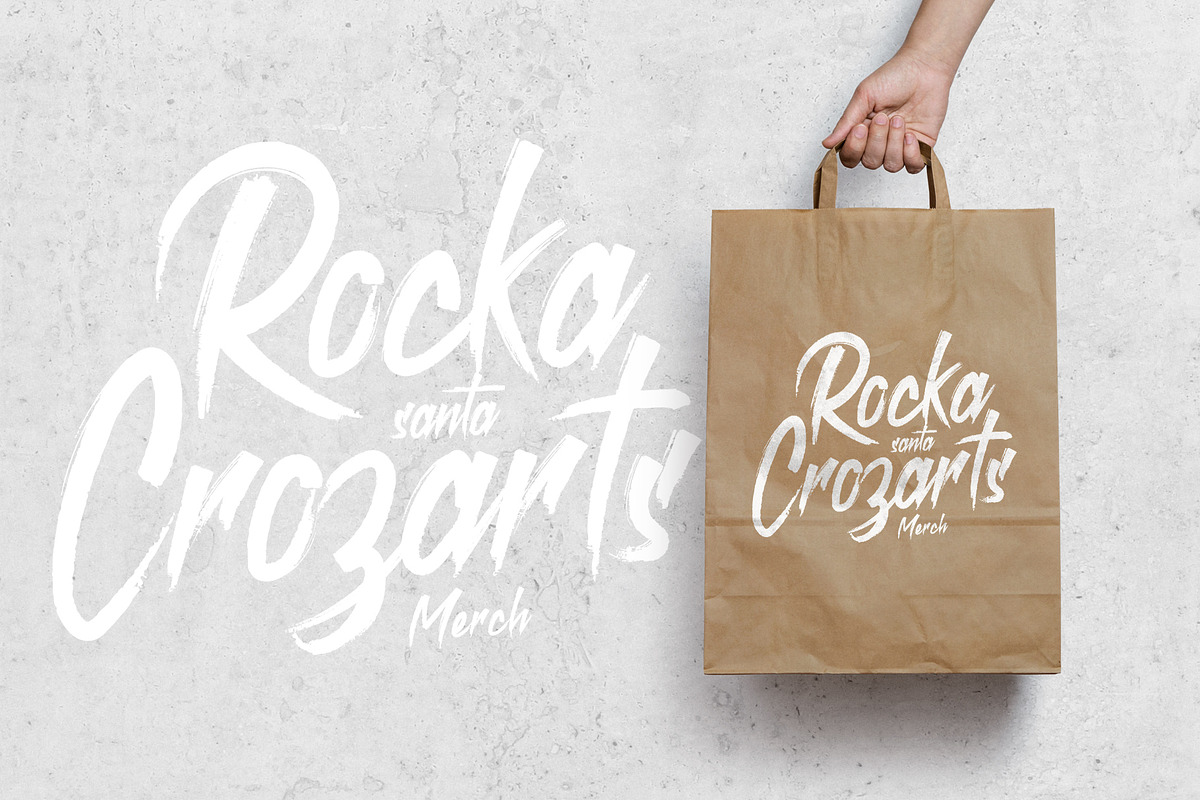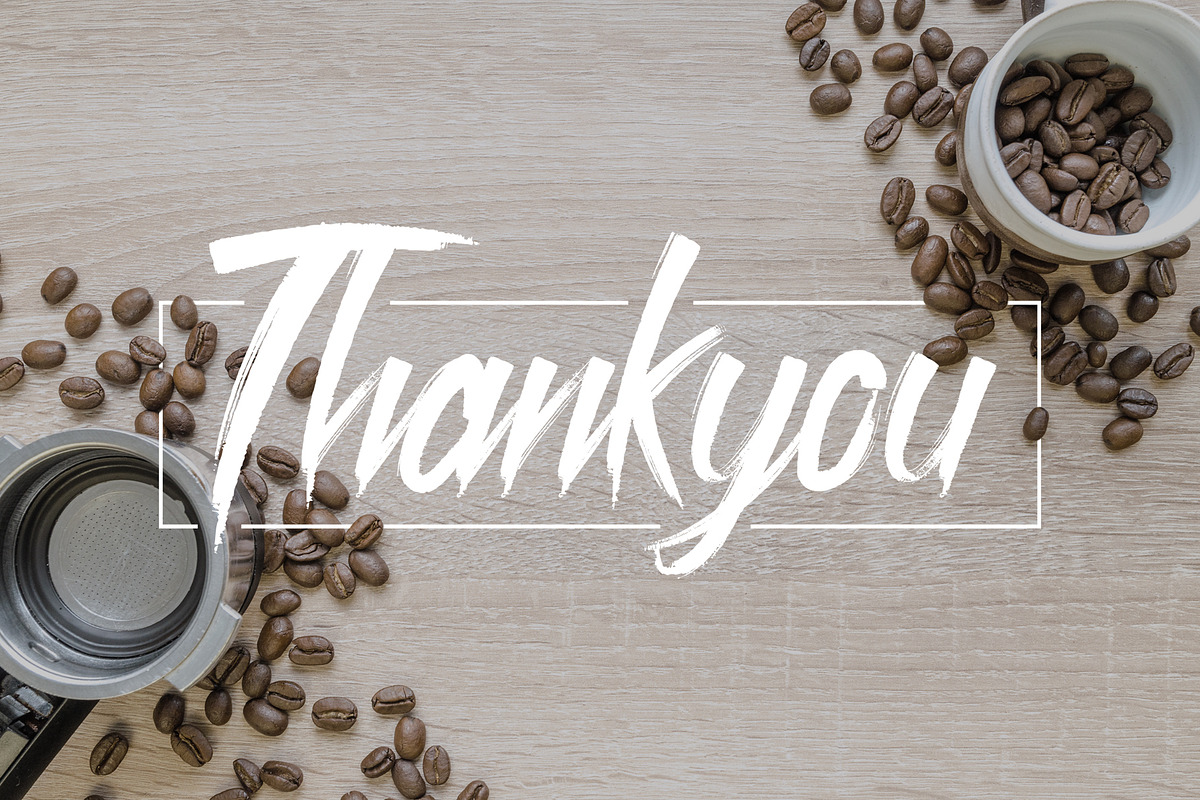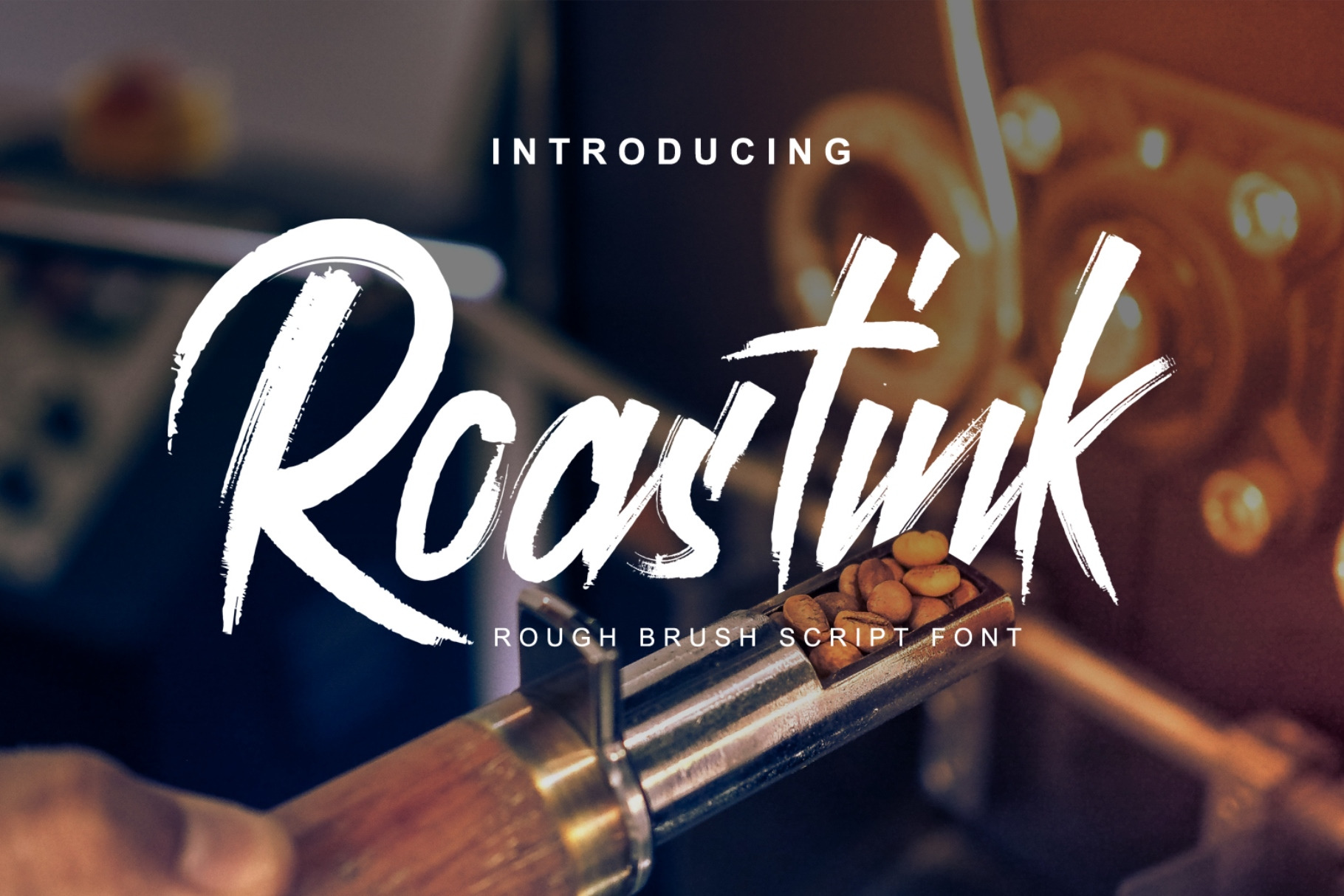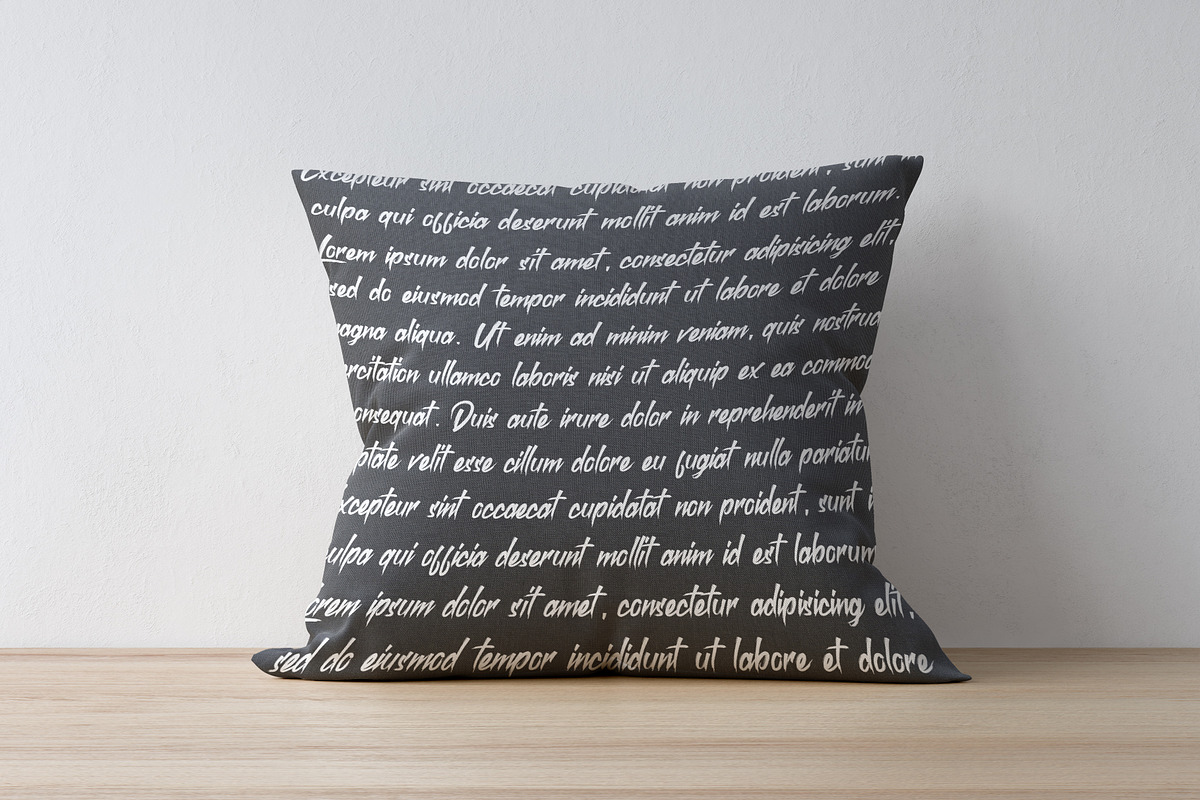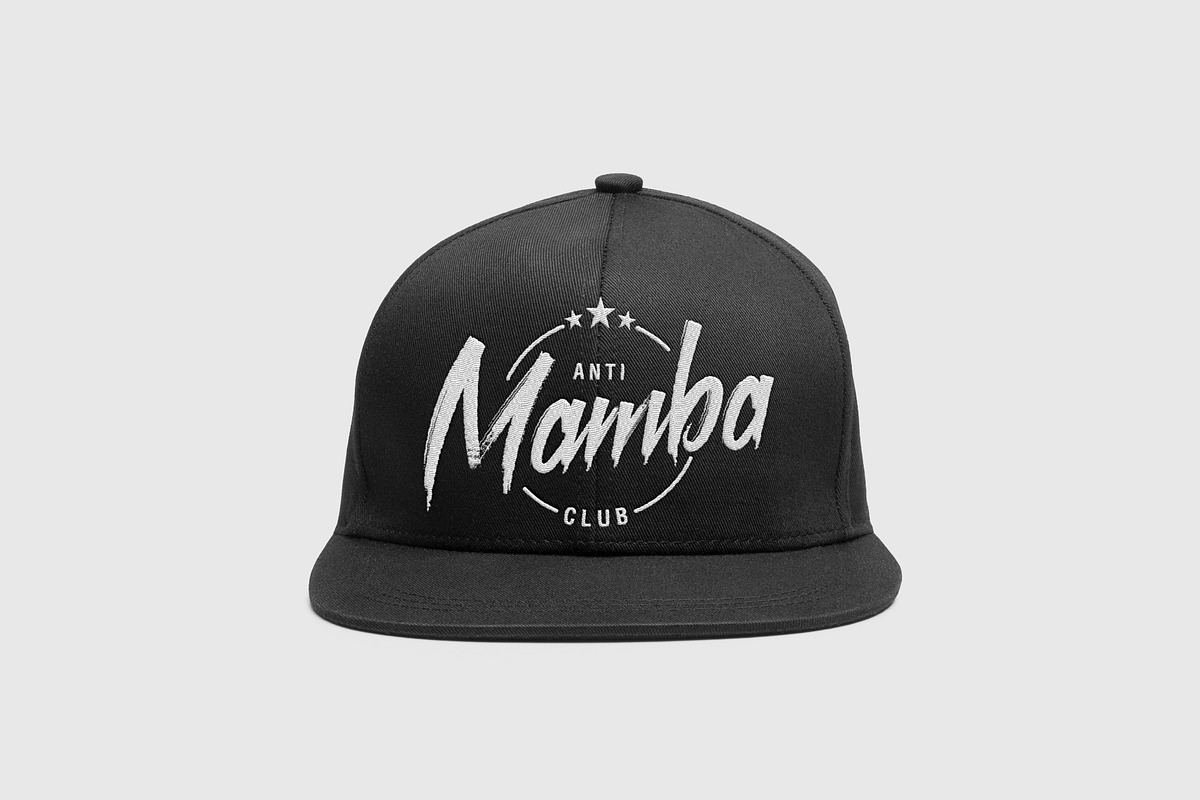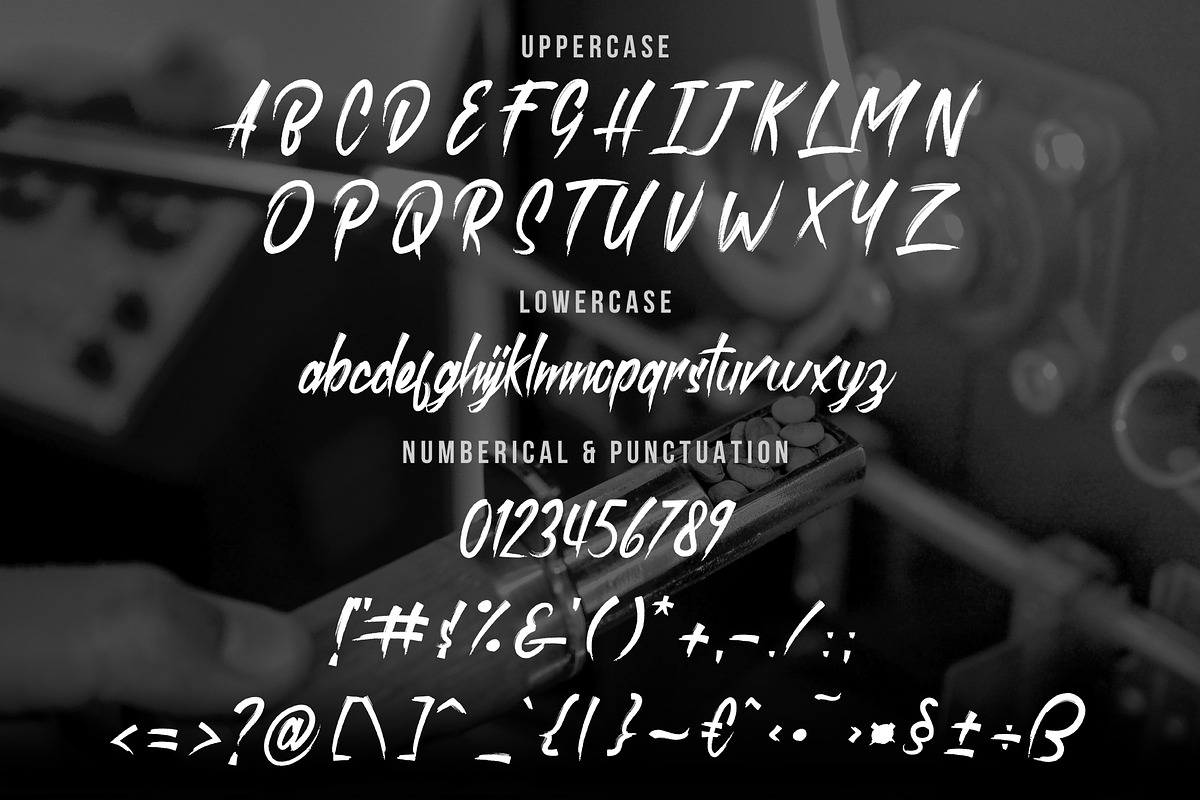
Roastink script rough brush font
Introducing Roastink Script.
Roastink Script is sharp and elegant font script. Comes with many opentype feature, upper and lower case standard character, punctuation and numerals, multilingual characters, ligatures, stylistic alternates, and many more glyph.